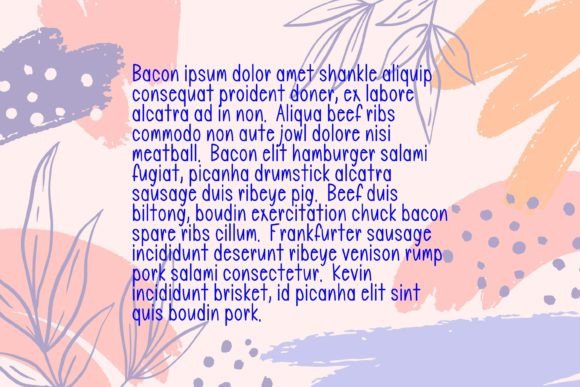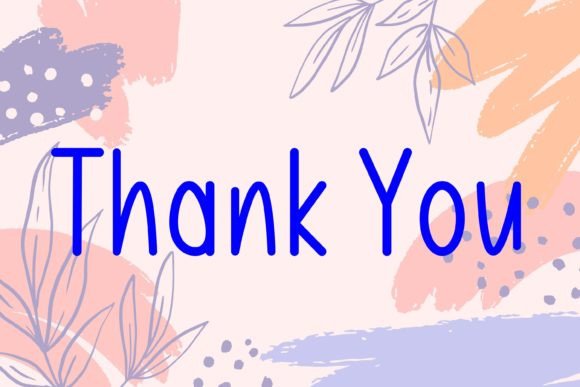
Introduction to Christiane Font
Christiane is a simple and friendly handwritten font.
Whimsical and a bit quirky, this font will brighten up each of your designs Add it confidently to your projects, and you will love the results.